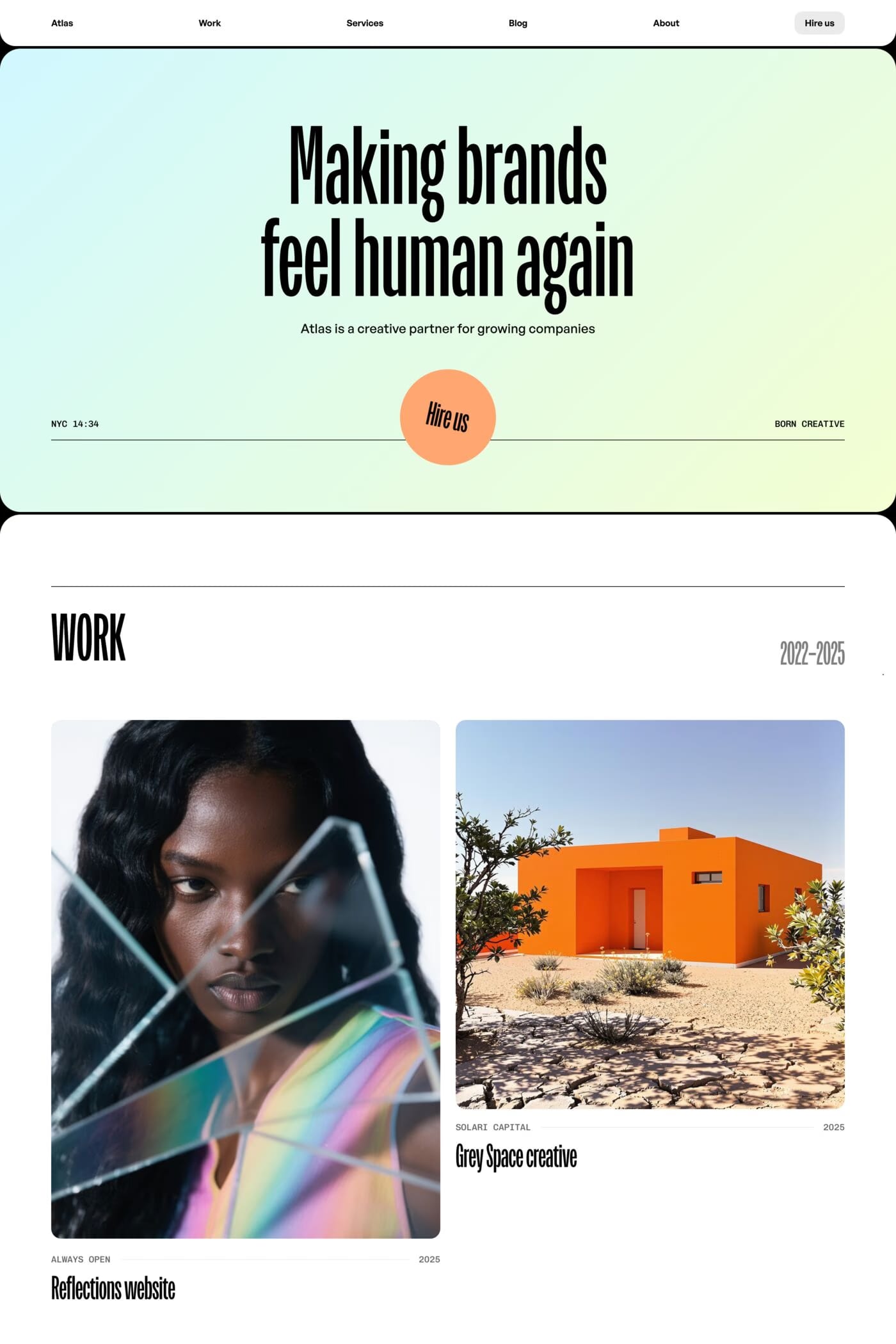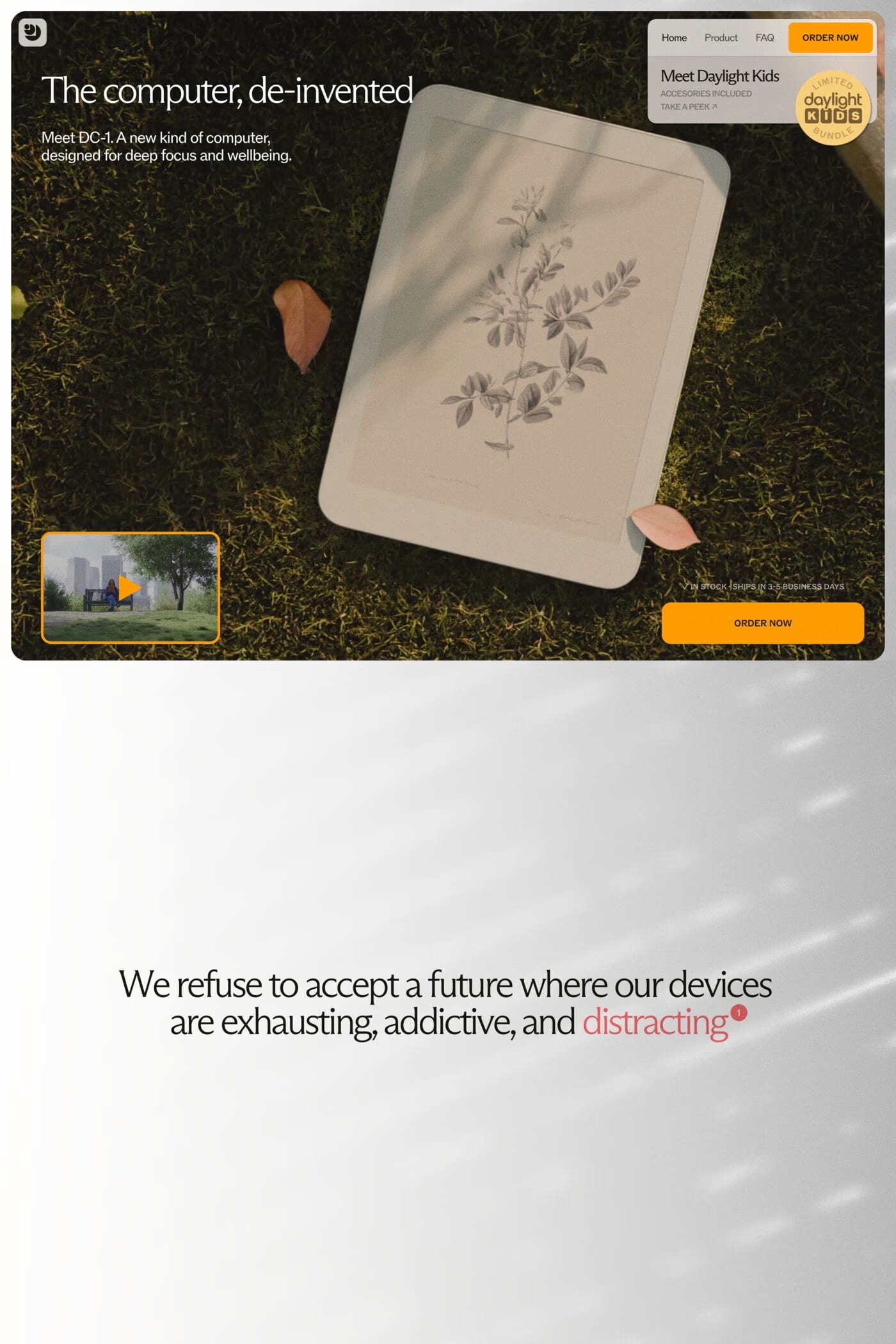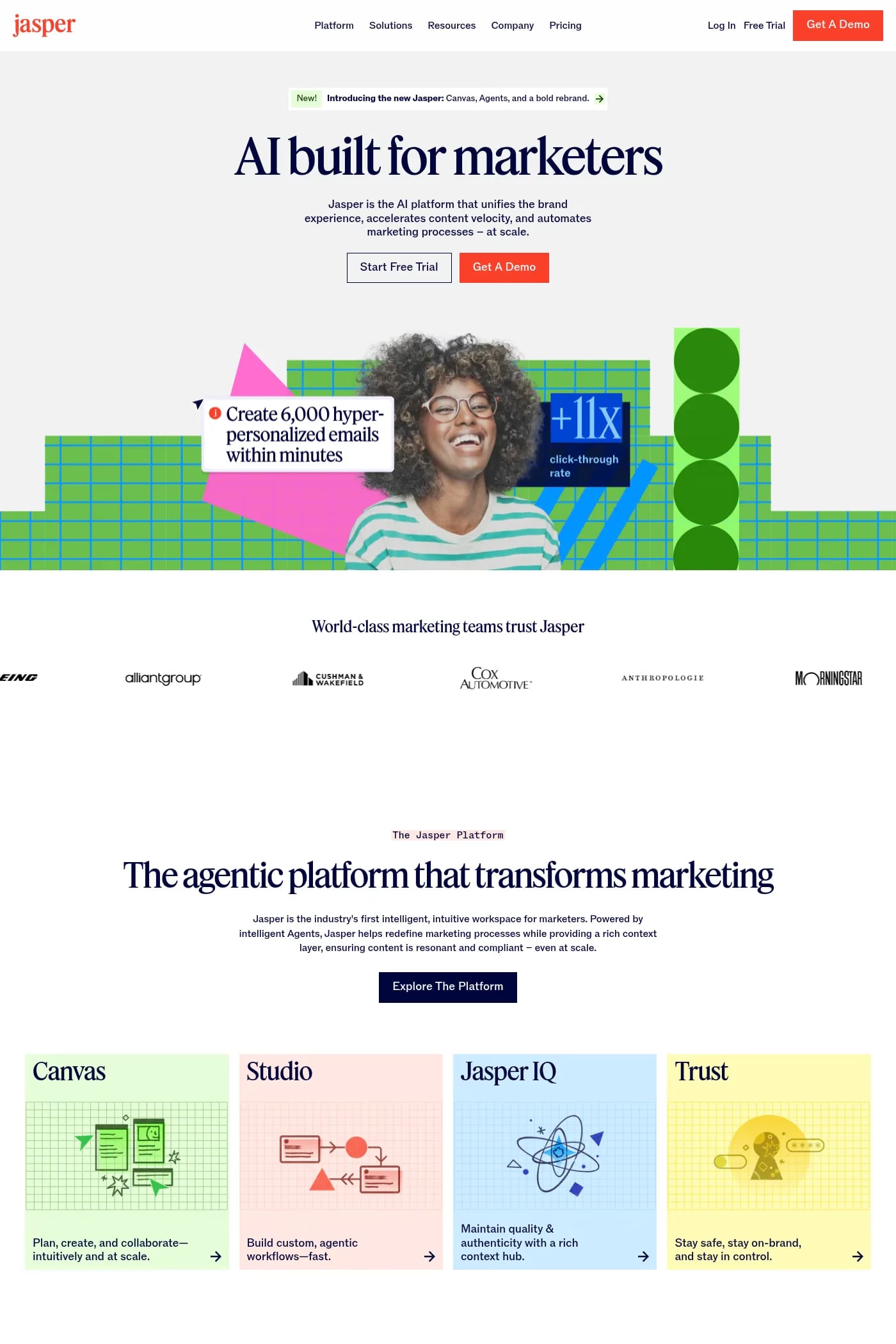
ROM is a sans-serif typeface from Dinamo.
Info Designed by our longstanding collaborator and dear friend Seb McLauchlan, ROM is a sturdy, confident fusion of classic Grotesk and Gothic typeface styles. It combines the rationalized lines of the former with raw details from the latter, resulting in moments both beautiful and dissonant.